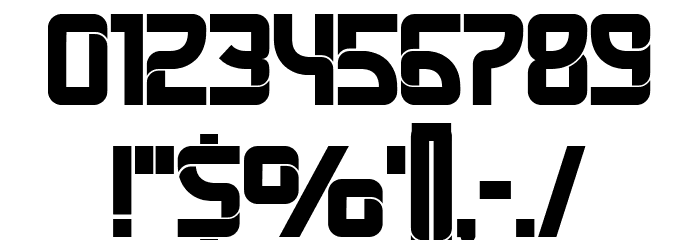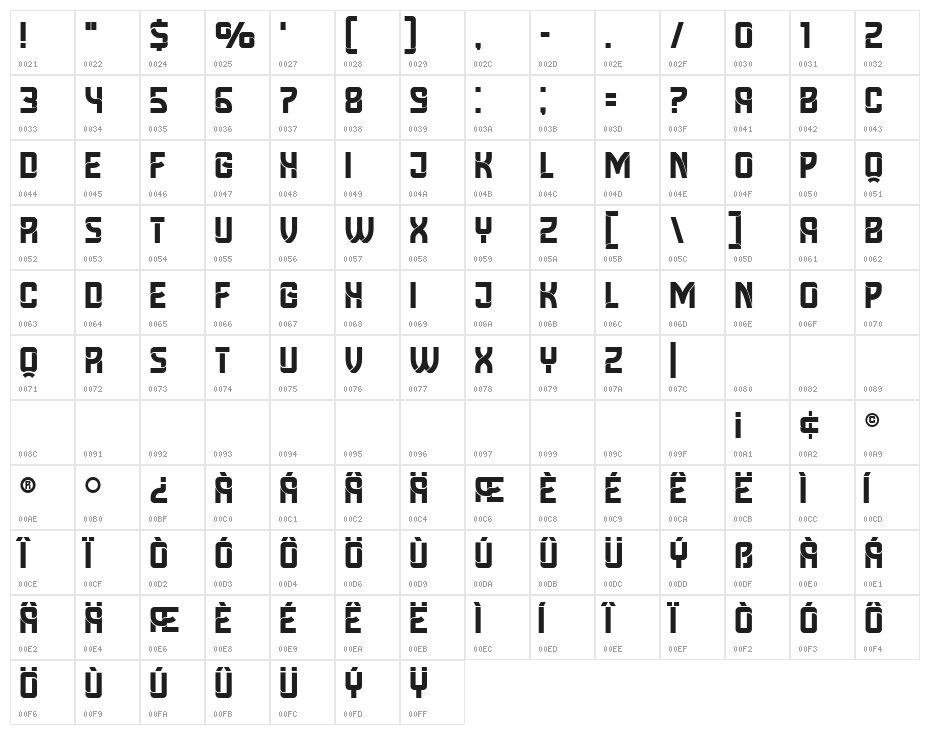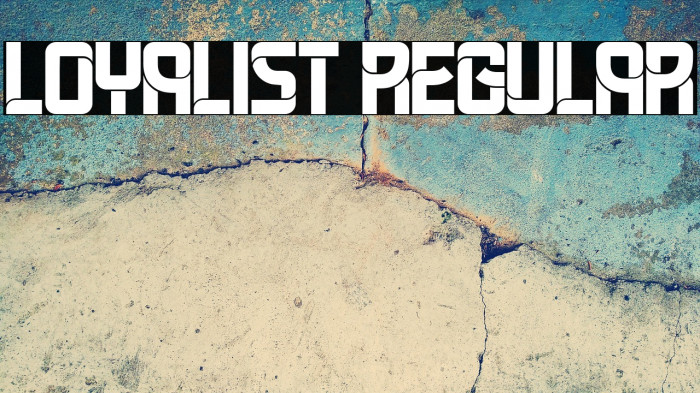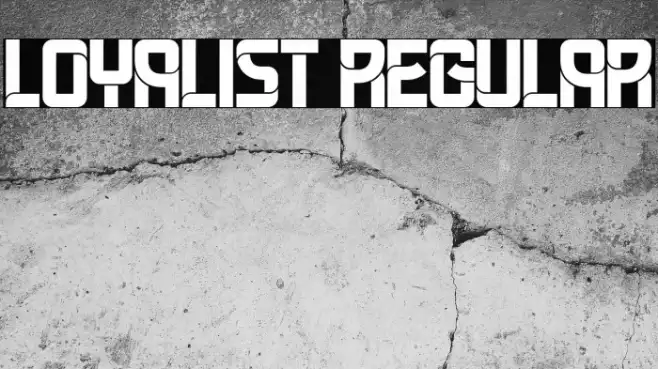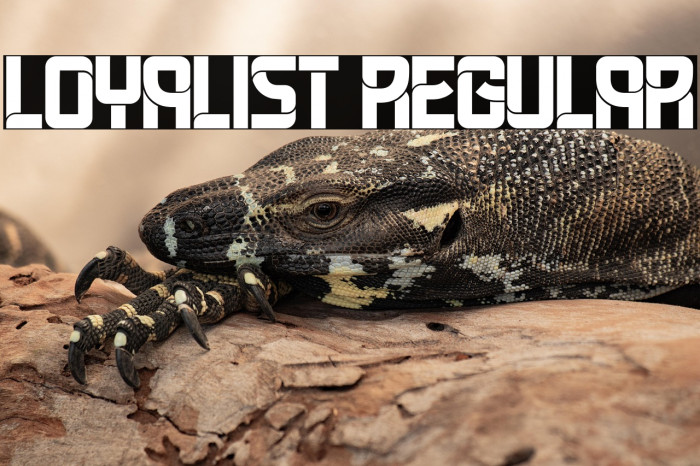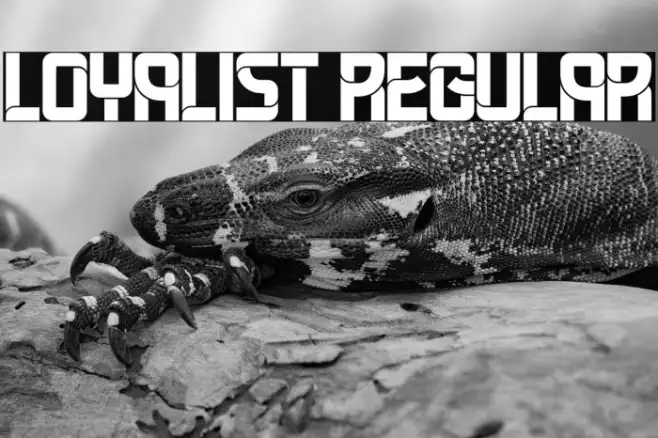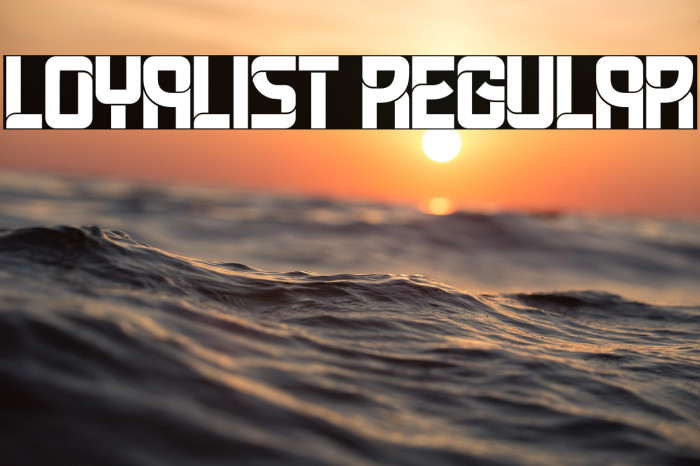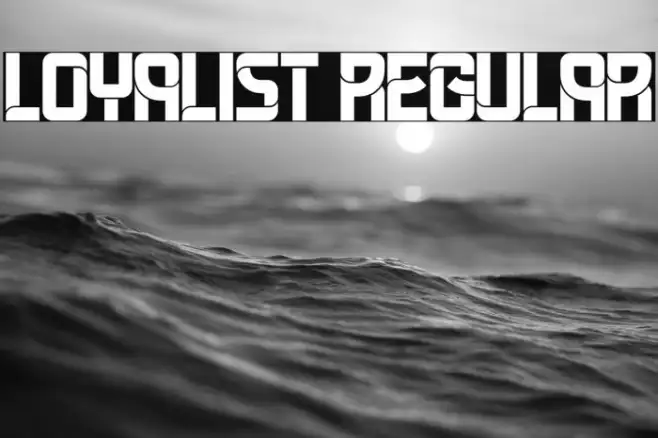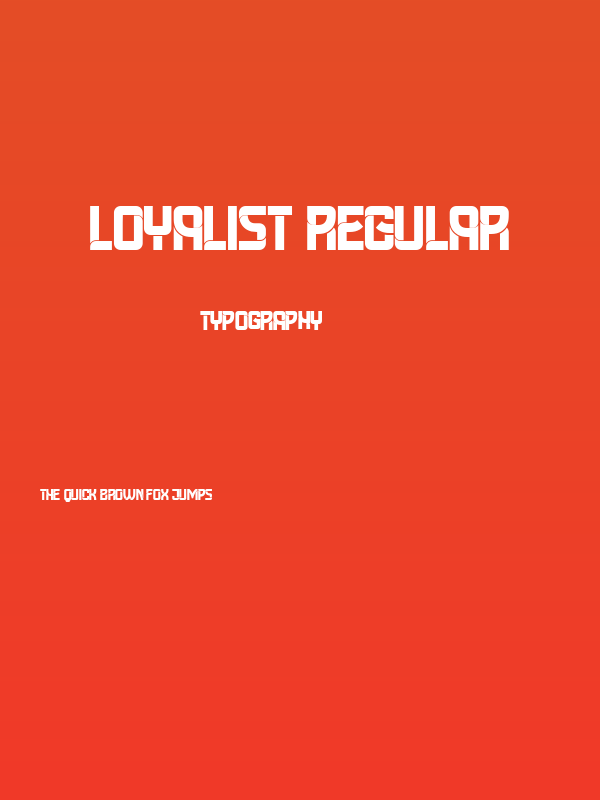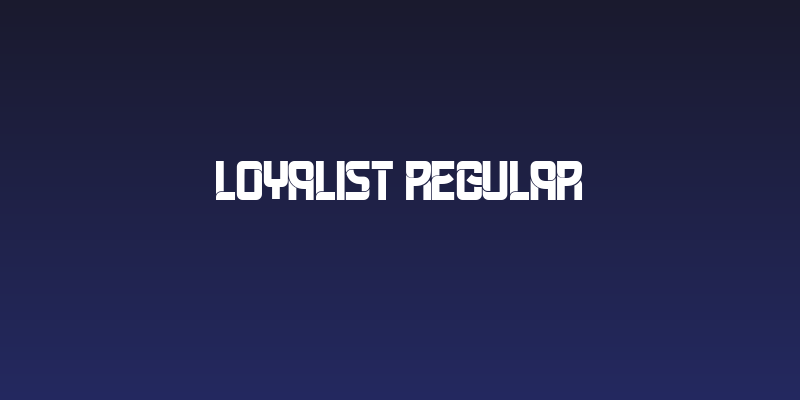
Loyalist Regular Font
Loyalist Regular Description
This font features a bold and geometric design with a modern and futuristic aesthetic. The characters are constructed with thick, block-like strokes that create a strong visual impact. The uppercase letters are particularly striking, with unique cutouts and angles that add a sense of dynamism and movement. The numbers and special characters maintain this bold style, ensuring consistency across all glyphs. The overall appearance is both robust and stylish, making it suitable for projects that require a standout typeface.
| Proposed Projects | Ideal for branding, posters, headlines, and any design project that requires a strong, modern typeface. |